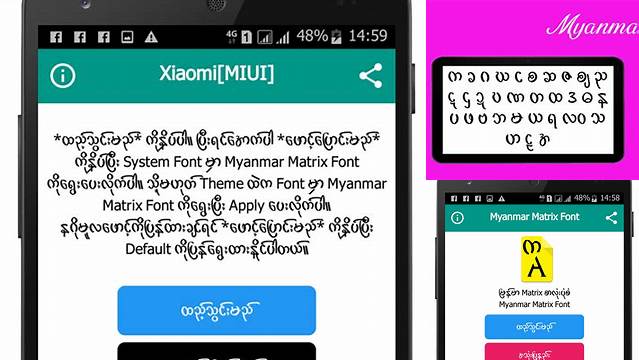
Understanding Myanmar Matrix Font: A Deep Dive
Hey guys, ever found yourself looking for that perfect font to represent the rich cultural tapestry of Myanmar? Well, you're in luck! Today, we're diving deep into the world of the Myanmar Matrix font, a popular choice for many who want to bring a touch of authentic Burmese script to their digital projects. We'll explore why this font is so sought after, where you can snag it for your PC, and how to get it up and running smoothly. So, grab a cup of coffee, and let's get started on making your designs pop with this unique typeface!
Why is the Myanmar Matrix Font So Popular?
The Myanmar Matrix font has gained significant traction among designers, writers, and anyone working with Burmese content due to its unique aesthetic and historical significance. Unlike some of the more modern, sleek fonts available, the Matrix font often carries a certain gravitas, reminiscent of traditional Burmese inscriptions and historical documents. This connection to the past makes it a compelling choice for projects aiming for authenticity and a deep cultural resonance. Whether you're designing a website about Myanmar's history, creating marketing materials for a Burmese business, or even just experimenting with different scripts for a personal project, the Matrix font offers a distinct visual identity. Its legibility in various sizes and its compatibility with different software also contribute to its widespread appeal. Many users find that it strikes a perfect balance between traditional charm and modern usability, making it a versatile tool in any digital artist's arsenal. The distinctive curves and strokes of the Burmese script are beautifully rendered in this font, ensuring that the cultural nuances are preserved and presented effectively. It's not just about displaying text; it's about conveying a sense of heritage and identity, which the Myanmar Matrix font does exceptionally well. This deep connection to cultural roots is a primary driver behind its enduring popularity, ensuring that it remains a go-to option for those who value authenticity in their digital creations. It's a font that speaks volumes about tradition while remaining perfectly functional for contemporary use.
Exploring Different Styles of Myanmar Fonts
While the Myanmar Matrix font is a standout, it's important to remember that the world of Burmese typography is vast and varied. There are numerous other fonts available, each with its own unique characteristics and applications. Some fonts might be designed for formal documents, offering a more traditional and conservative feel, while others are created for more casual or artistic purposes, boasting bolder strokes or more stylized elements. Exploring these different styles can help you find the perfect fit for any project. For instance, some fonts might mimic the look of hand-painted signs, while others aim for the clarity of official government documents. Understanding the subtle differences β the way certain vowels are formed, the thickness of consonants, or the presence of decorative elements β can significantly enhance your design. Itβs like choosing the right brush for a painting; each font has its own personality. You might encounter fonts that are optimized for web use, ensuring fast loading times and excellent readability on screens, while others are better suited for print, where higher resolution and detail are paramount. Some designers even combine different Myanmar fonts within a single project to create visual hierarchy and interest. Perhaps a bold, decorative font for headings and a clean, legible font for body text. This exploration isn't just about aesthetics; it's also about functionality and cultural appropriateness. Different contexts call for different typographic treatments. For example, a font used for a historical novel might differ greatly from one used for a contemporary travel blog about Myanmar. The availability of diverse styles ensures that you can always find a font that perfectly matches the tone and purpose of your communication, allowing for a richer and more nuanced expression of the Burmese language and culture in your digital and print endeavors. This variety is a testament to the evolving nature of digital typography and its ability to adapt to diverse creative needs.